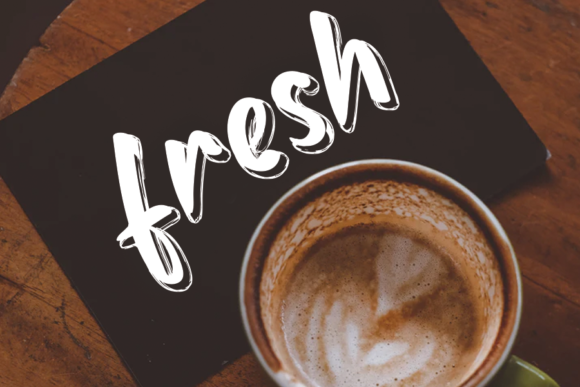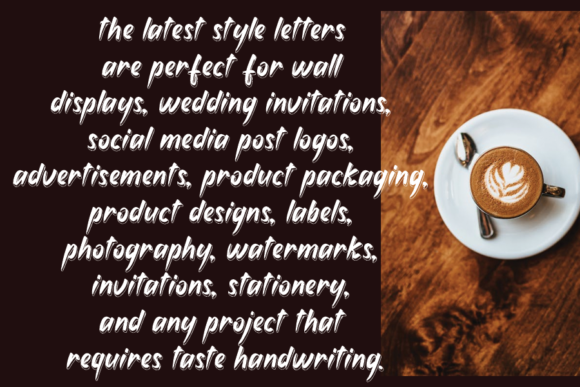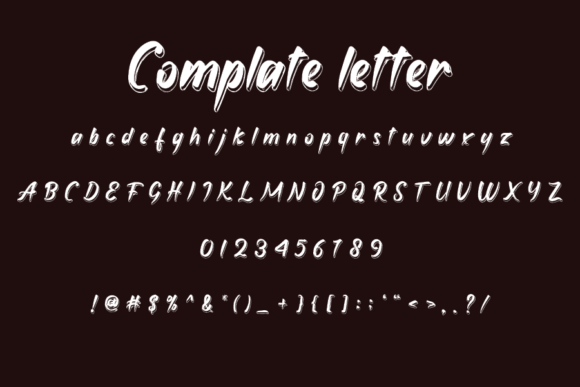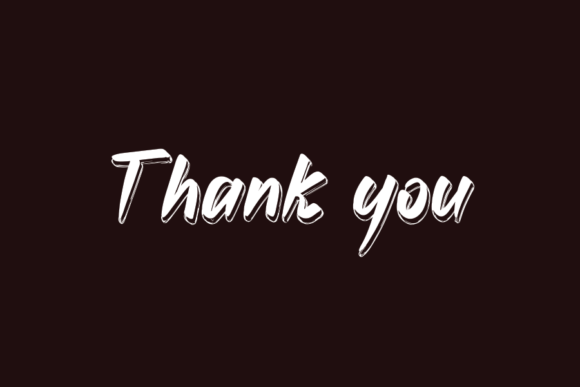
Coffe Cokie Font: The Perfect Handwritten Font for Your Creative Projects
Are you a designer, crafter, or DIY enthusiast looking for a unique and versatile font to elevate your creative projects? Look no further than Coffe Cokie, a beautiful handwritten font created with a brush pen. This clean and quirky font is perfect for logos, branding, social media, and a wide range of crafty DIY projects.
What Makes Coffe Cokie Special?
Coffe Cokie is a one-of-a-kind font that stands out from the crowd. Its unique handwritten style, created with a brush pen, gives it a personal and organic feel that’s perfect for projects that require a touch of personality. The font’s clean lines and quirky charm make it versatile enough to be used in a variety of contexts, from modern logos to social media graphics.
Key Features of Coffe Cokie Font
- Handwritten style: Coffe Cokie is a true handwritten font, created with a brush pen to give it a personal and unique feel.
- Clean and quirky: The font’s clean lines and quirky charm make it perfect for a wide range of creative projects.
- Versatile: Coffe Cokie can be used for logos, branding, social media graphics, and a variety of DIY projects.
- Easy to read: Despite its handwritten style, Coffe Cokie is easy to read and understand, making it perfect for use in body text.
Coffe Cokie is a dream font for designers and crafters alike. Its unique style and versatility make it perfect for a wide range of projects, from modern logos to social media graphics. Whether you’re creating a brand identity, designing a social media graphic, or working on a crafty DIY project, Coffe Cokie is the perfect choice.
Use Coffe Cokie for:
- Logos and branding: Create a unique and memorable brand identity with Coffe Cokie.
- Social media graphics: Add a touch of personality to your social media graphics with Coffe Cokie.
- Crafty DIY projects: Use Coffe Cokie to add a personal touch to your crafty DIY projects, such as handmade cards, gift tags, and more.
- Stationery and paper goods: Create beautiful stationery and paper goods, such as notebooks, journals, and stickers, with Coffe Cokie.
Why Choose Coffe Cokie?
With so many fonts to choose from, why choose Coffe Cokie? Here are just a few reasons:
- Unique style: Coffe Cokie has a unique and distinctive style that’s sure to stand out.
- Versatility: The font’s versatility makes it perfect for a wide range of projects.
Coffe Cokie is a beautiful and versatile handwritten font that’s perfect for designers, crafters, and DIY enthusiasts. Its unique style, clean lines, and quirky charm make it perfect for a wide range of creative projects. Whether you’re creating a brand identity, designing a social media graphic, or working on a crafty DIY project, Coffe Cokie is the perfect choice. So why wait? Download Coffe Cokie today and start creating something amazing!